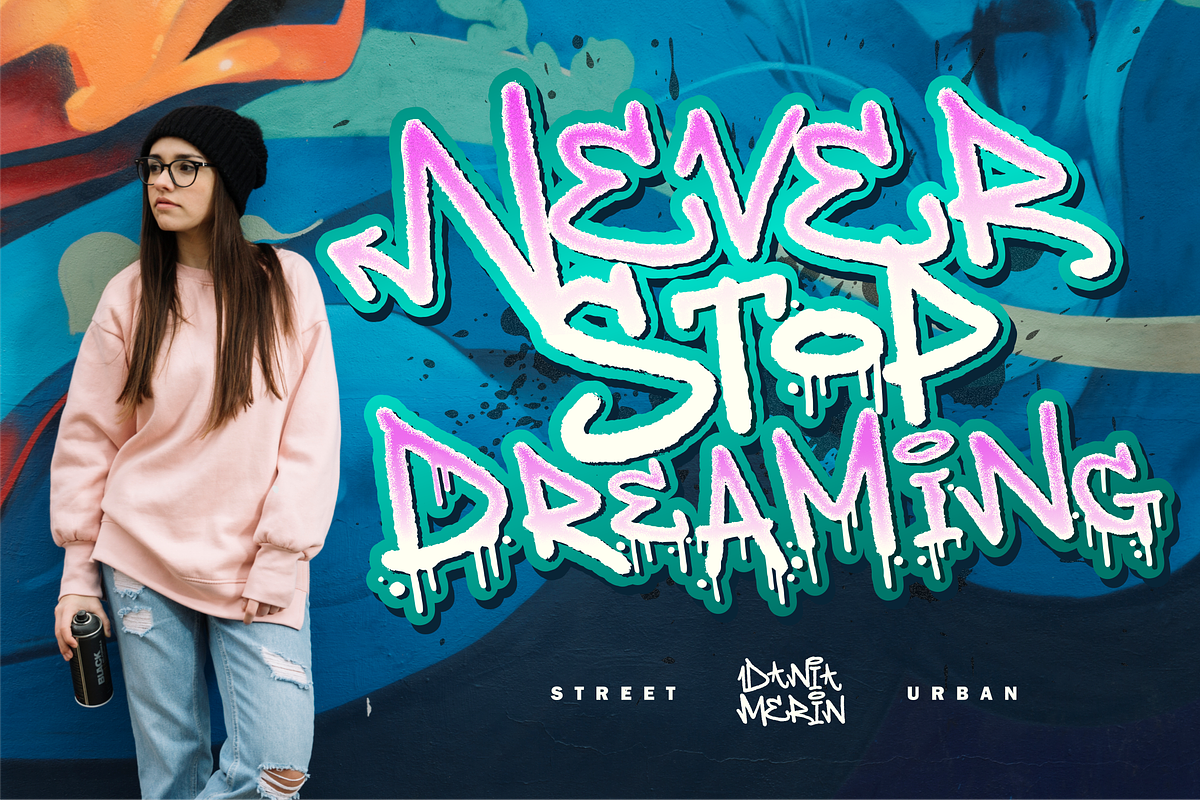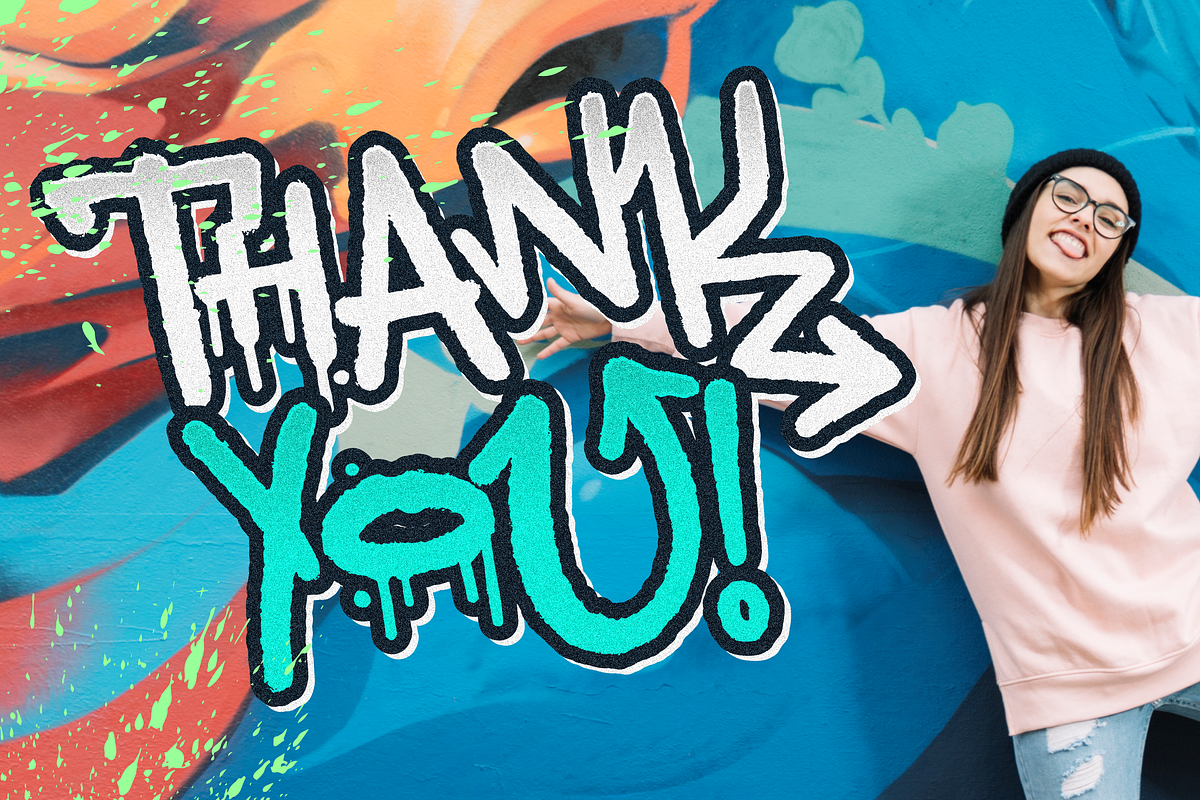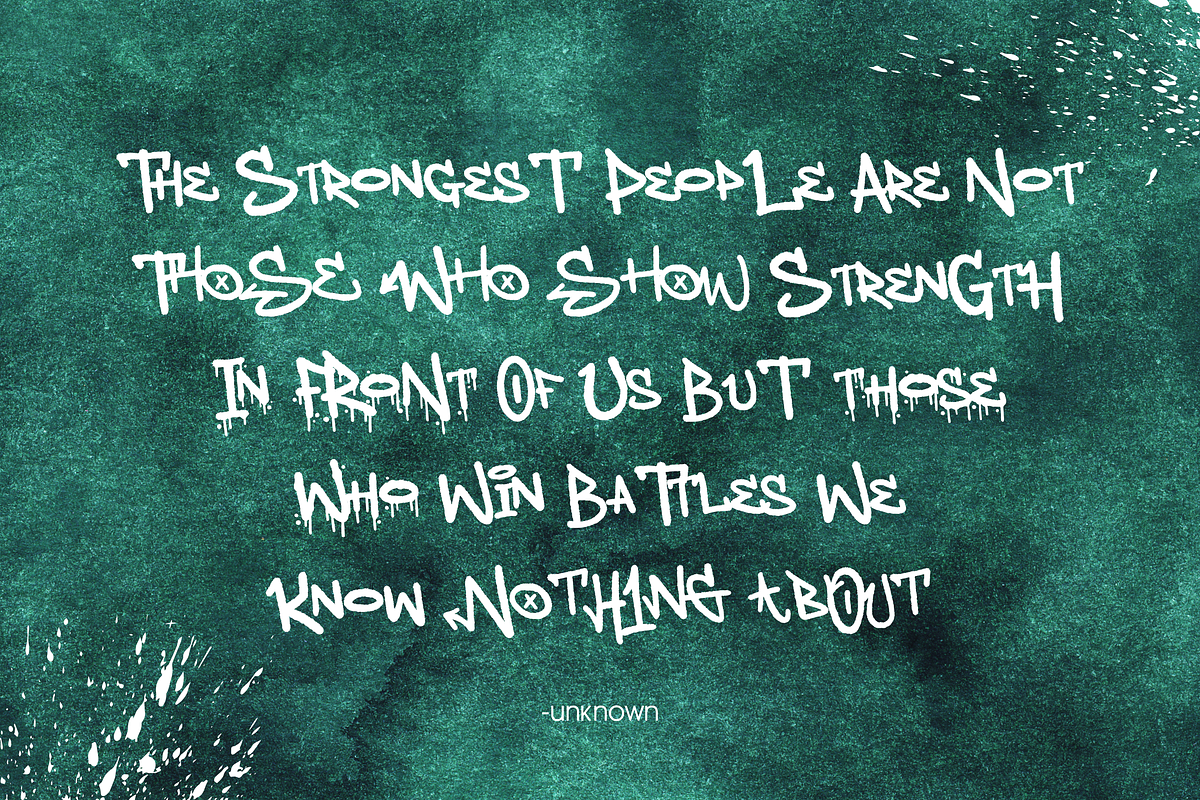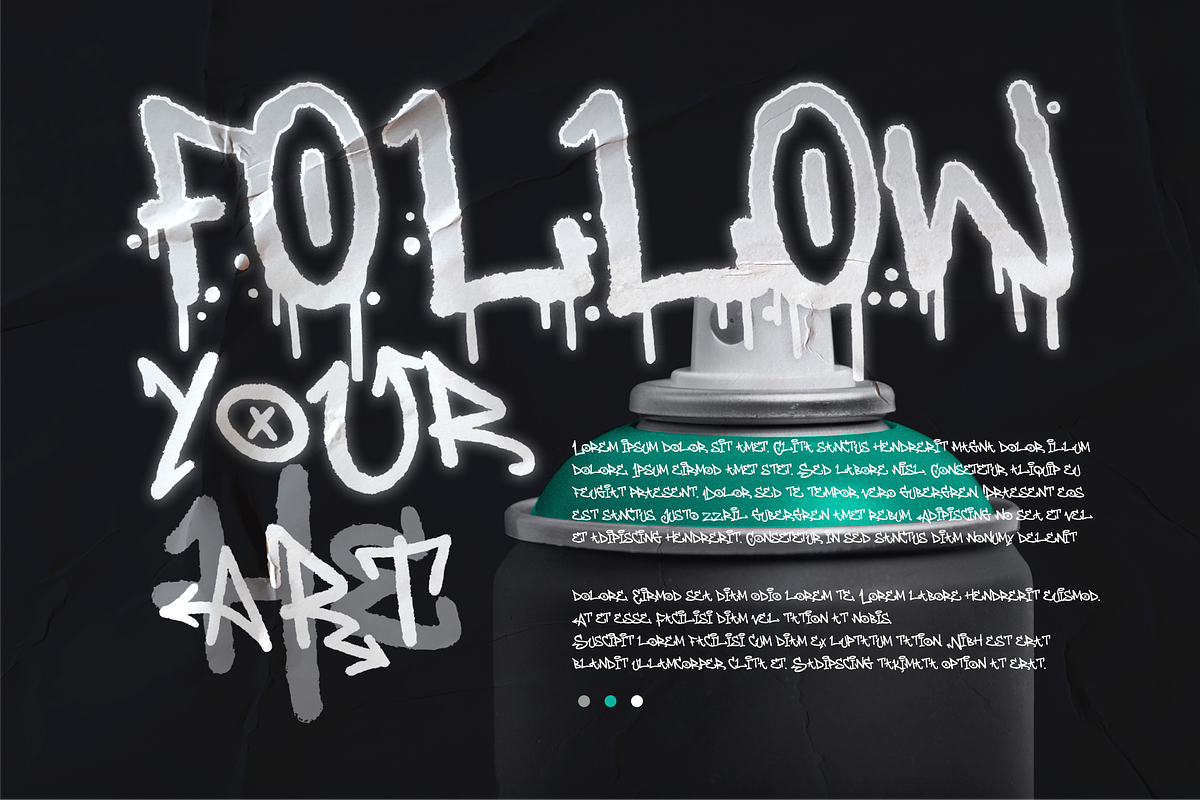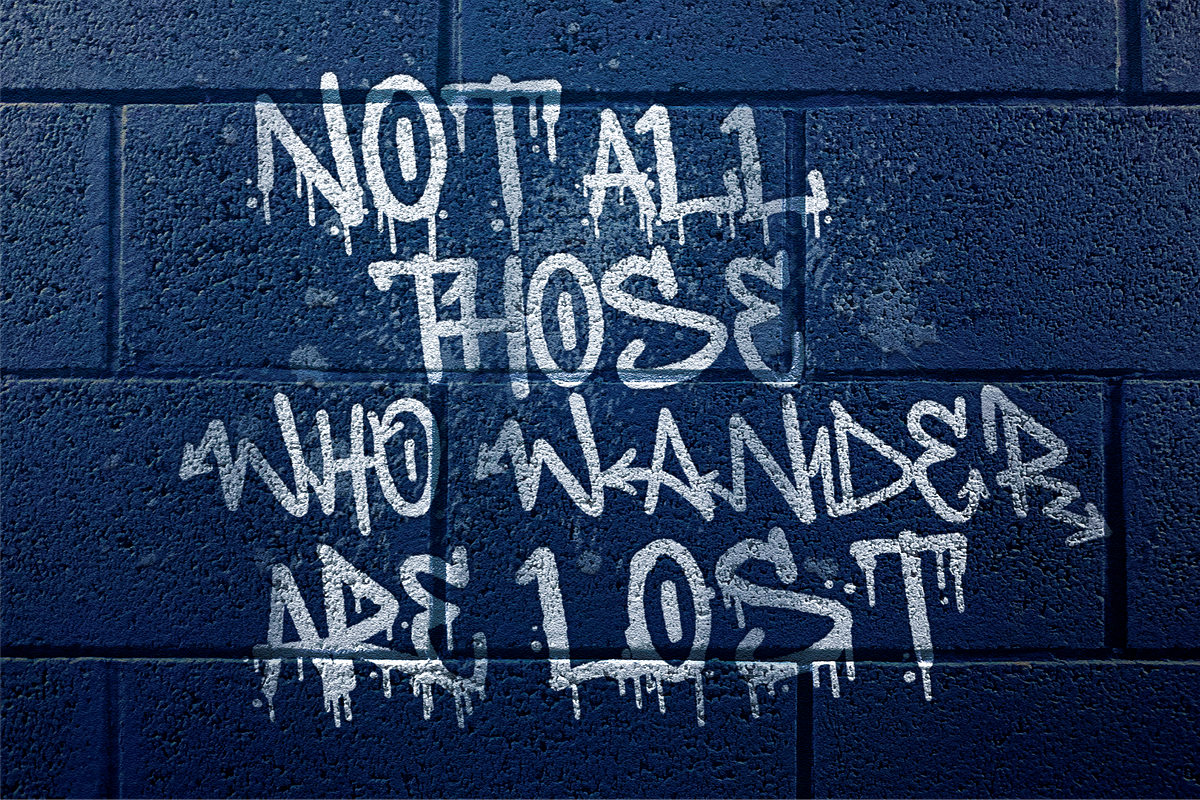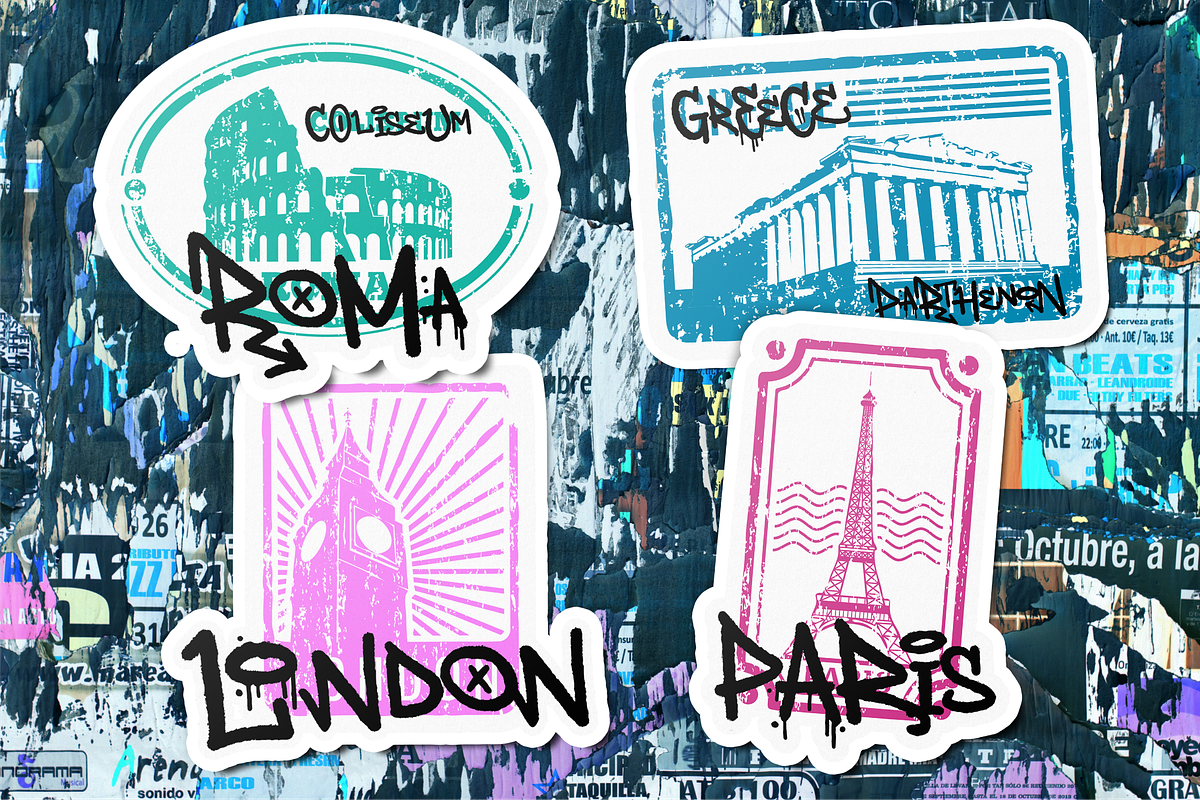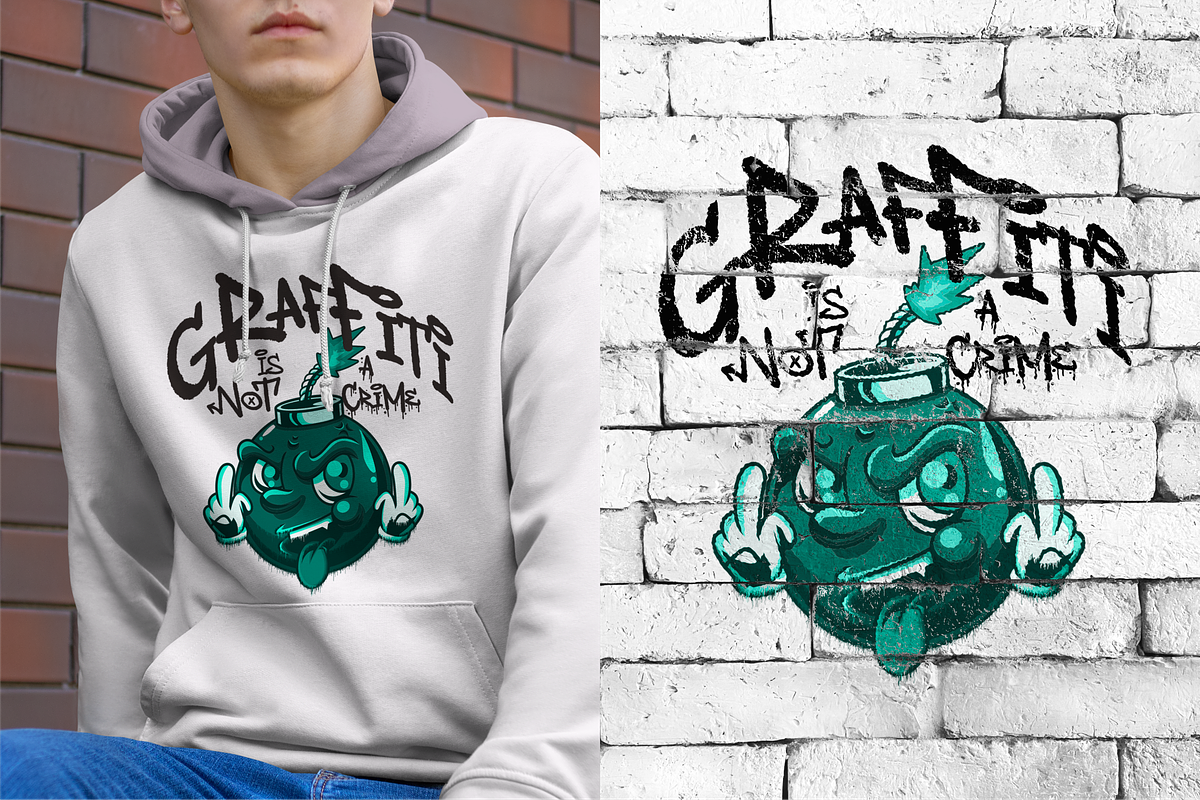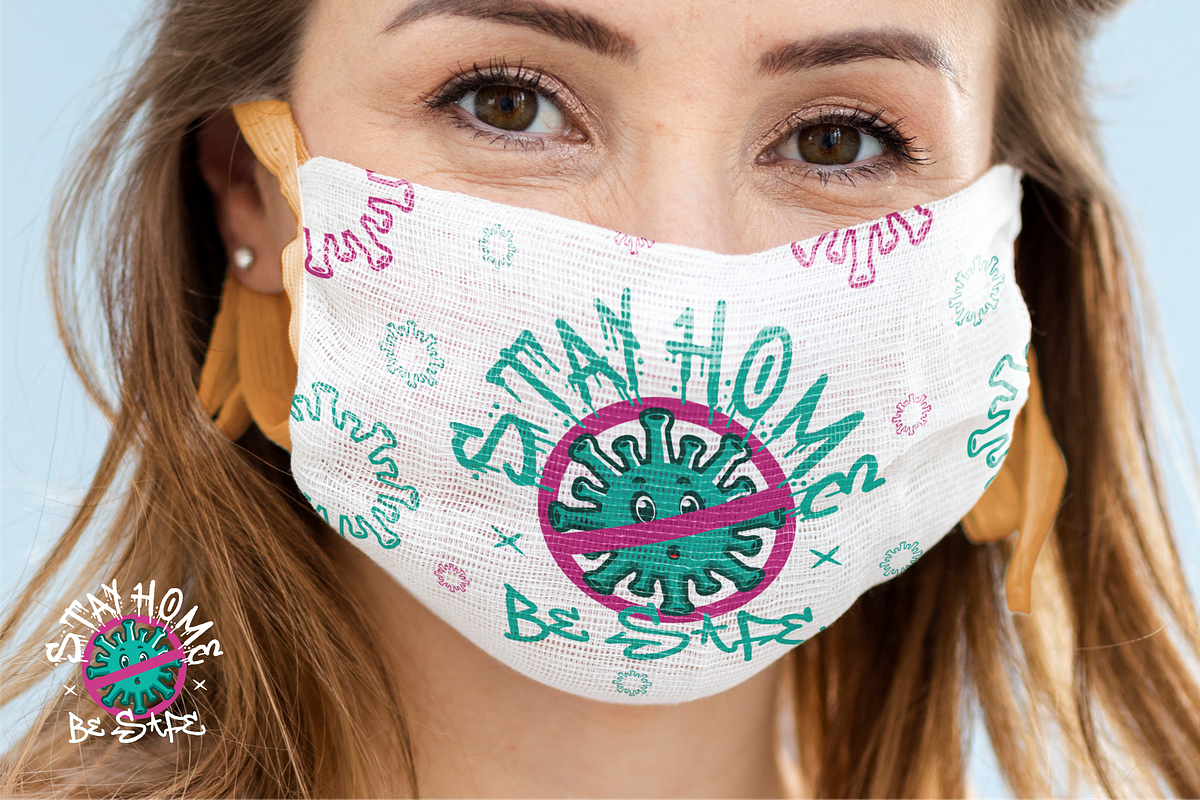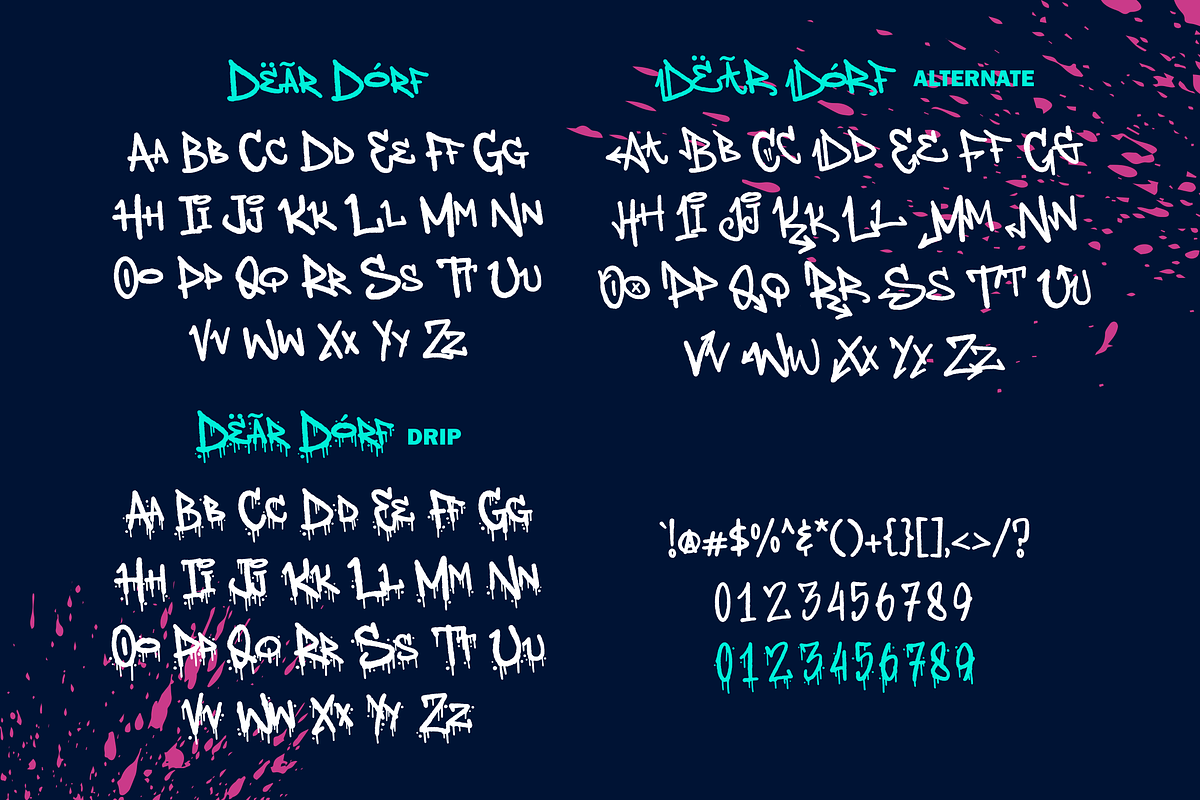
Deardorf Font
Proudly Present, Deardorf
Deardorf is a Handdrawn Graffitti Font.
Deardorf is perfect for product packaging, branding project, megazine, social media, wedding, or just used to express words above the background.